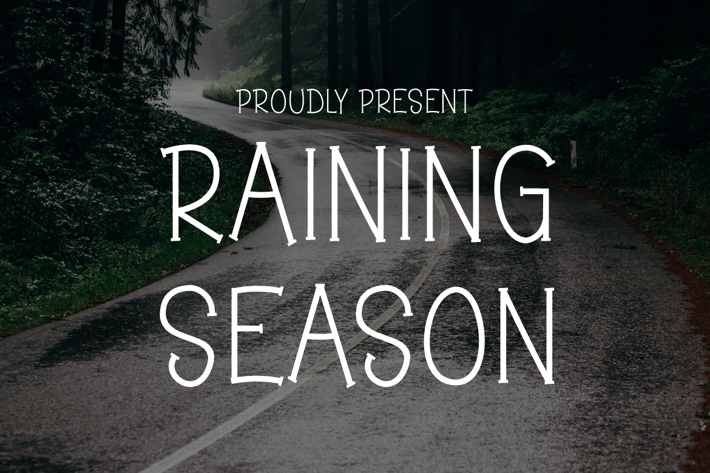
Raining Season - Light & Thin Font
Raining Season Font is unique . Ready to use for your design like labeling, movie sceen, poster, movie title, gigs, album covers, logos, and much more.